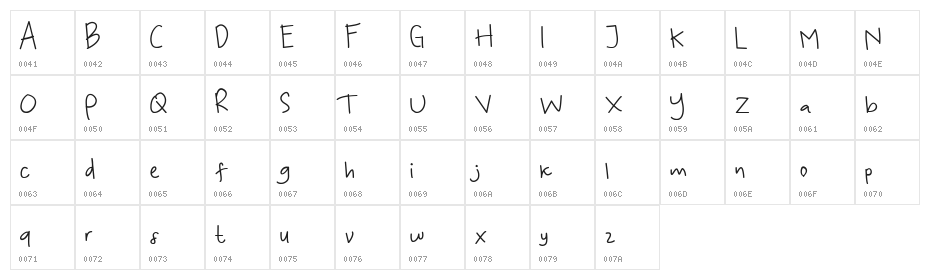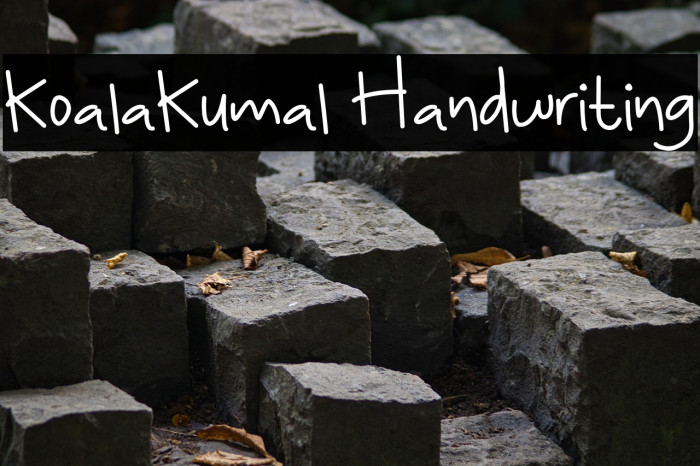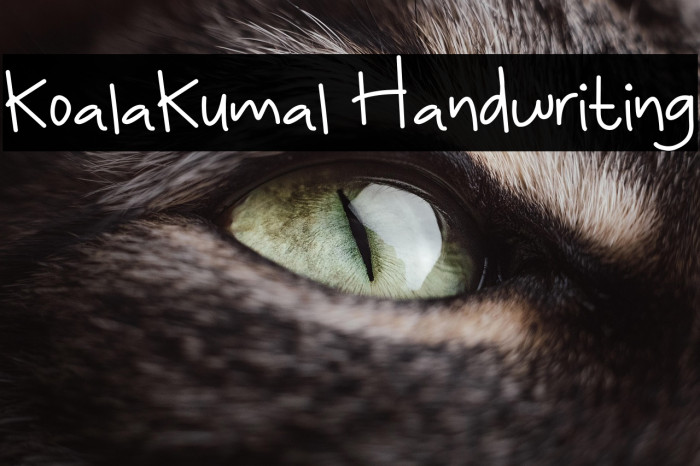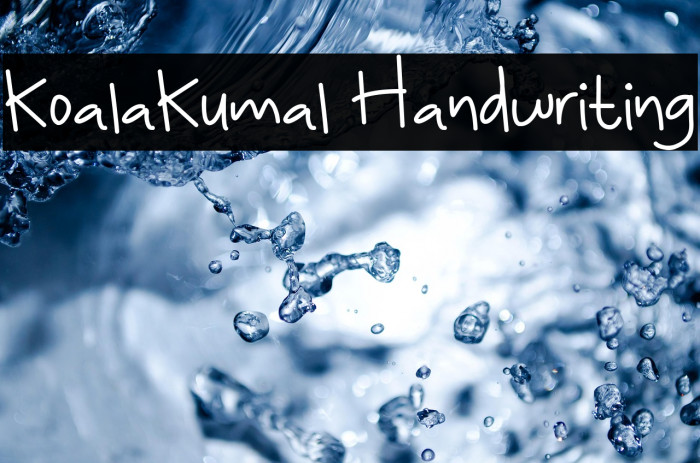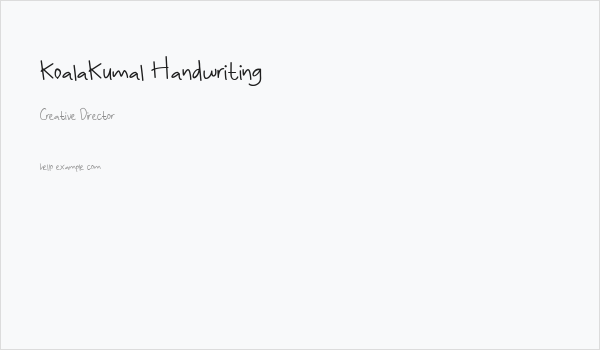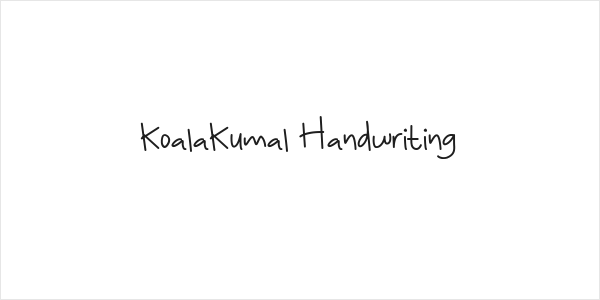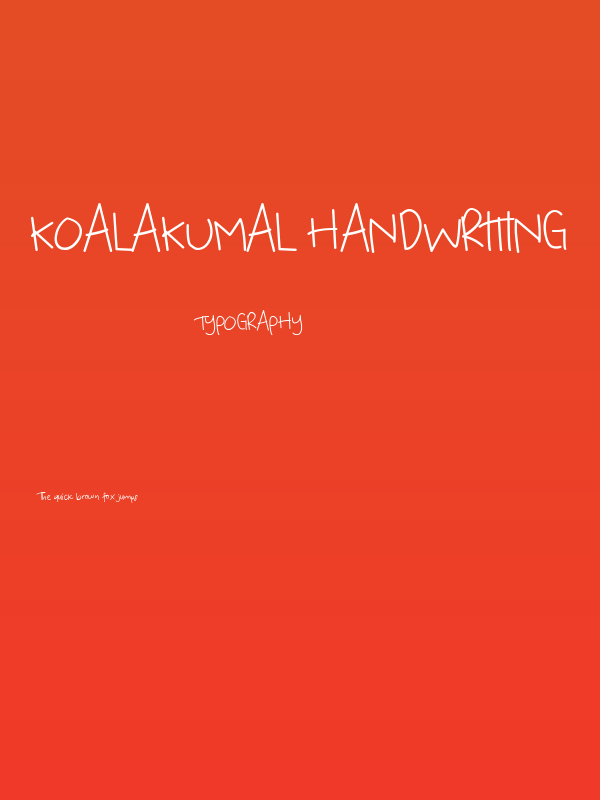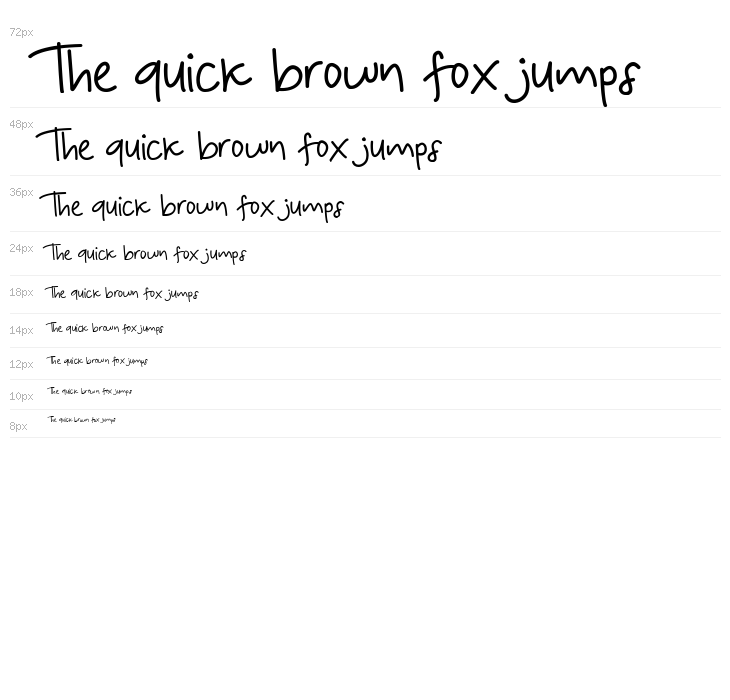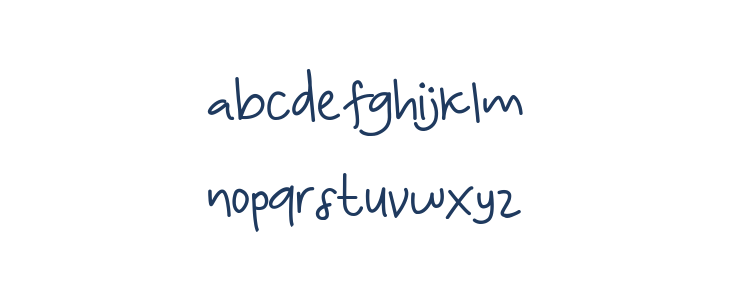
KoalaKumal Handwriting Font
KoalaKumal Handwriting Description
This font features a playful and casual handwritten style, characterized by its irregular strokes and organic flow. The letters are slightly slanted, giving it a dynamic and lively appearance. The uppercase letters are tall and narrow, while the lowercase letters maintain a consistent height, creating a harmonious balance. The strokes are smooth and rounded, adding to the friendly and approachable feel of the font. It is well-suited for projects that require a personal touch or a relaxed vibe, such as invitations, greeting cards, or children's book covers.
Overall StyleCasual, Playful
Use CaseHeadlines, Logos, Invitations
Proposed ProjectsIdeal for invitations, greeting cards, children's book covers, and personal branding.